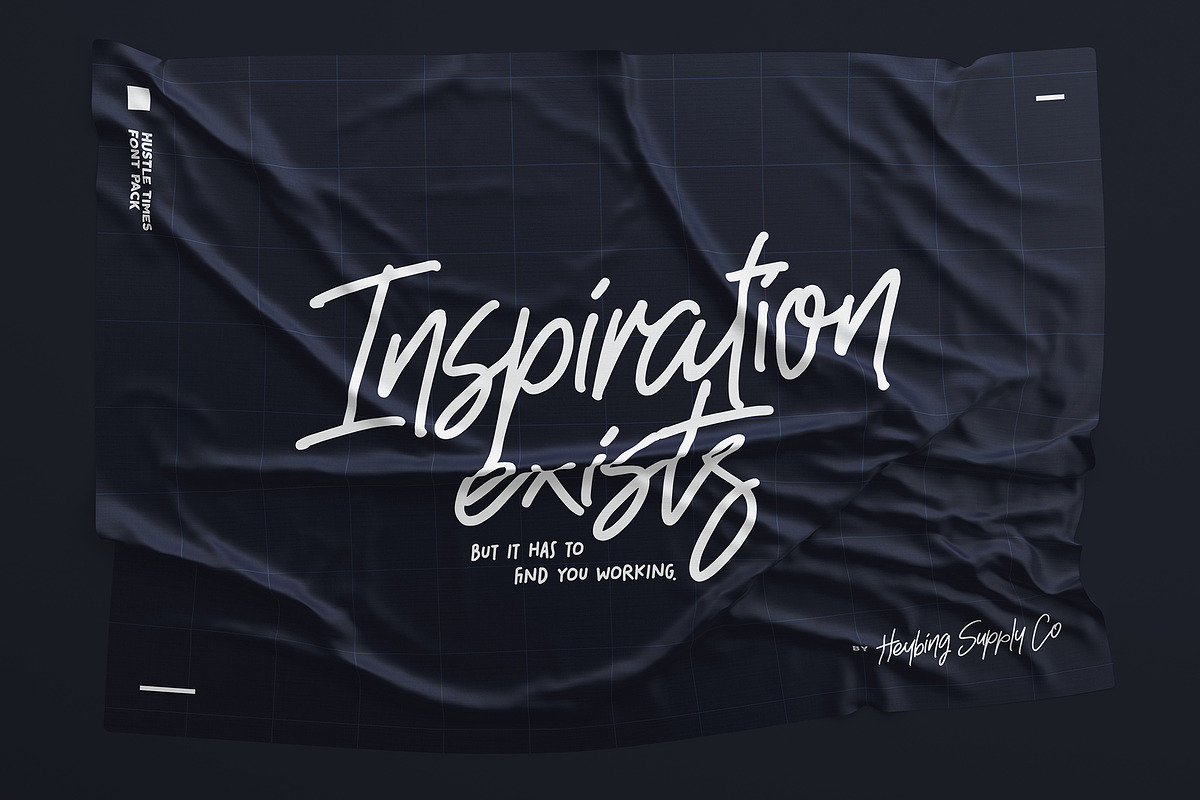
Hustle Times + Extras
Hustle Times Font is a handwriting typeface inspired from the 70s-80s era. We take this vintage / retro vibes into a new, contemporary form.
With the form of clean monoline, it's very suitable for making neat & stylish writing for logos, brands, packaging or merchandise.
Hustle Times Font comes as a single font with many additional features.
Large glyph Set : includes a full set of character A-z, stylistic alternates of each character, as well as multi-lingual support, currency figures, numerals, and punctuation.
End Swashes : Each lowercase character has an 'end-swash' version that gives a custom feel for your writing.
Swash underline : You can choose various kinds of swash that make your writing looks more perfect & eye-catching.